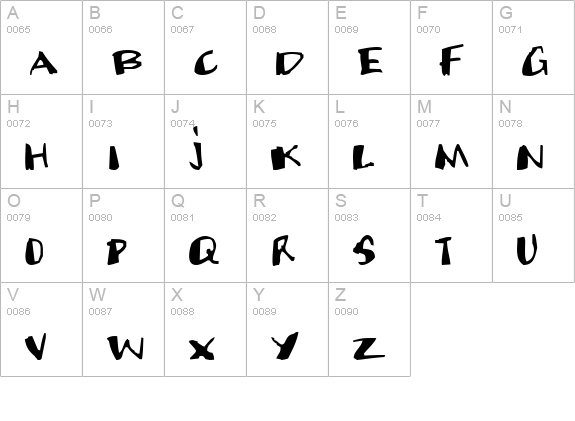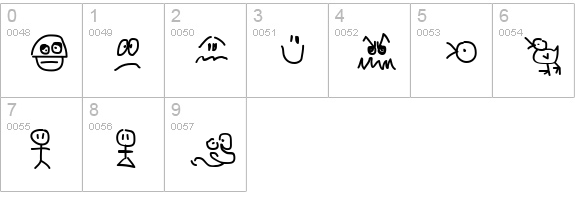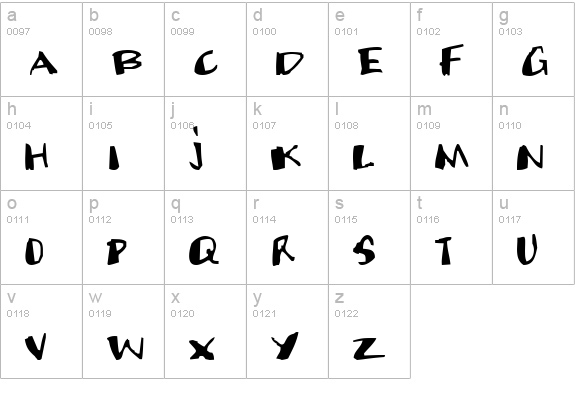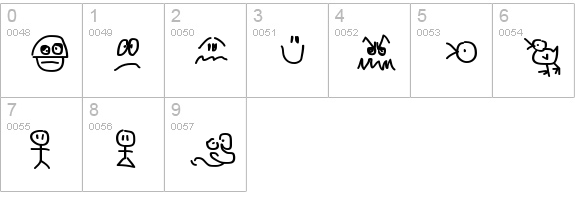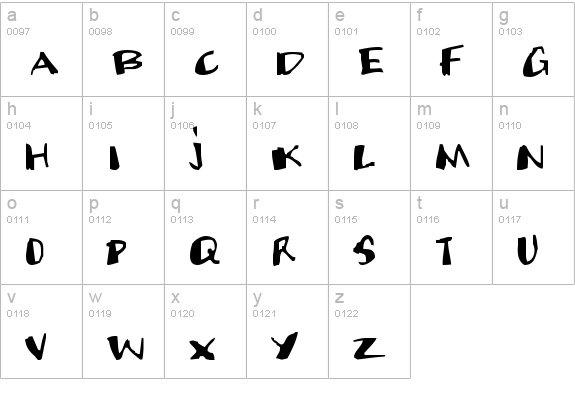
Candy Sniper Font Details
Introducing Candy Sniper font - a playful and whimsical typeface that will add a sweet touch to your designs. This font features quirky and bold letterforms with a touch of retro charm, making it perfect for eye-catching headlines, posters, and branding projects. The Candy Sniper font is sure to bring a fun and youthful vibe to any design. Best of all, Candy Sniper font is available for free download at FontsMarket.com. So go ahead and add this delightful font to your collection today and let your creativity shine with its unique and playful style.